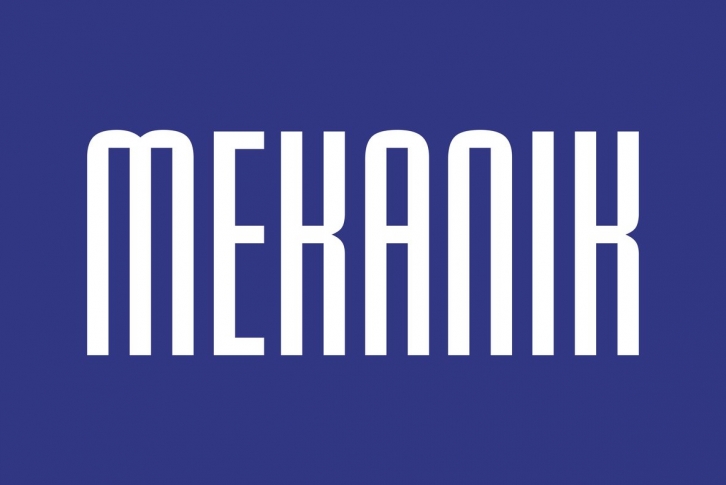
As the name suggests, this strong geometric font reflects the ultimate in simple mechanical sans serif type design. Designed by the accomplished British artist David Quay, Mekanik effectively echoes the type styles developed by the Soviet Constructivists of the early 1920's for which there is a strong resurgence in interest. Excellent for use where a feeling of precision or strength is required.